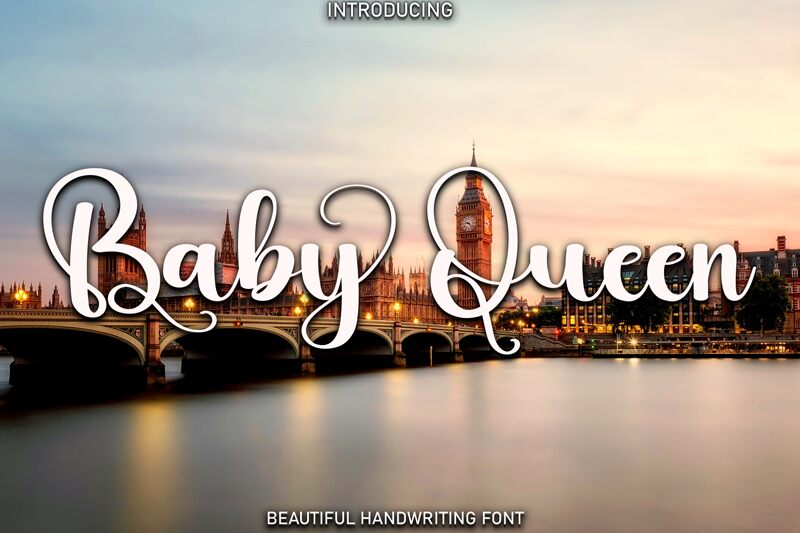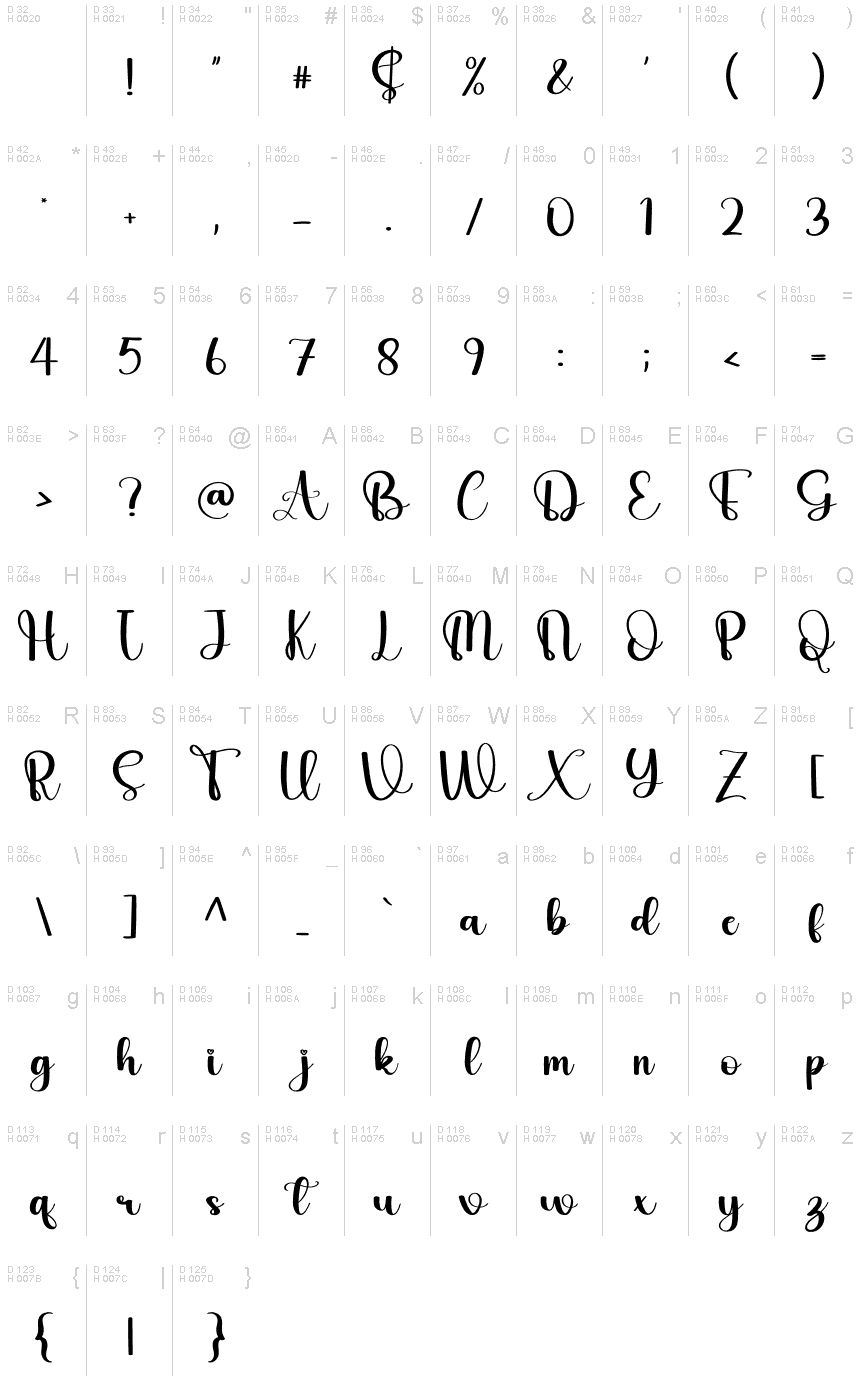
Baby Queen
Baby Queen, designed by Harlek Studio, is a stunning calligraphy font that effortlessly exudes elegance and grace. With its delicate strokes and intricate details, this typeface adds a touch of sophistication to any project it graces.
Its versatile nature makes it an ideal choice for wedding invitations, feminine branding materials, luxurious packaging designs, and elegant blog headers. Baby Queen's timeless charm effortlessly captures attention and creates a lasting impression.
Elevate your designs with this beautiful calligraphy font that is sure to leave your audience enchanted.